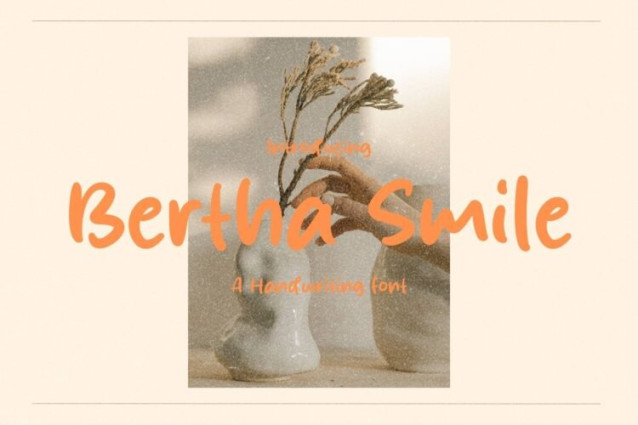
Bertha Smile Font
Bertha Smile Font is a simple and friendly handwritten font. Its natural and unique style makes it incredibly fitting to a large pool of designs. The only limit is your imagination!